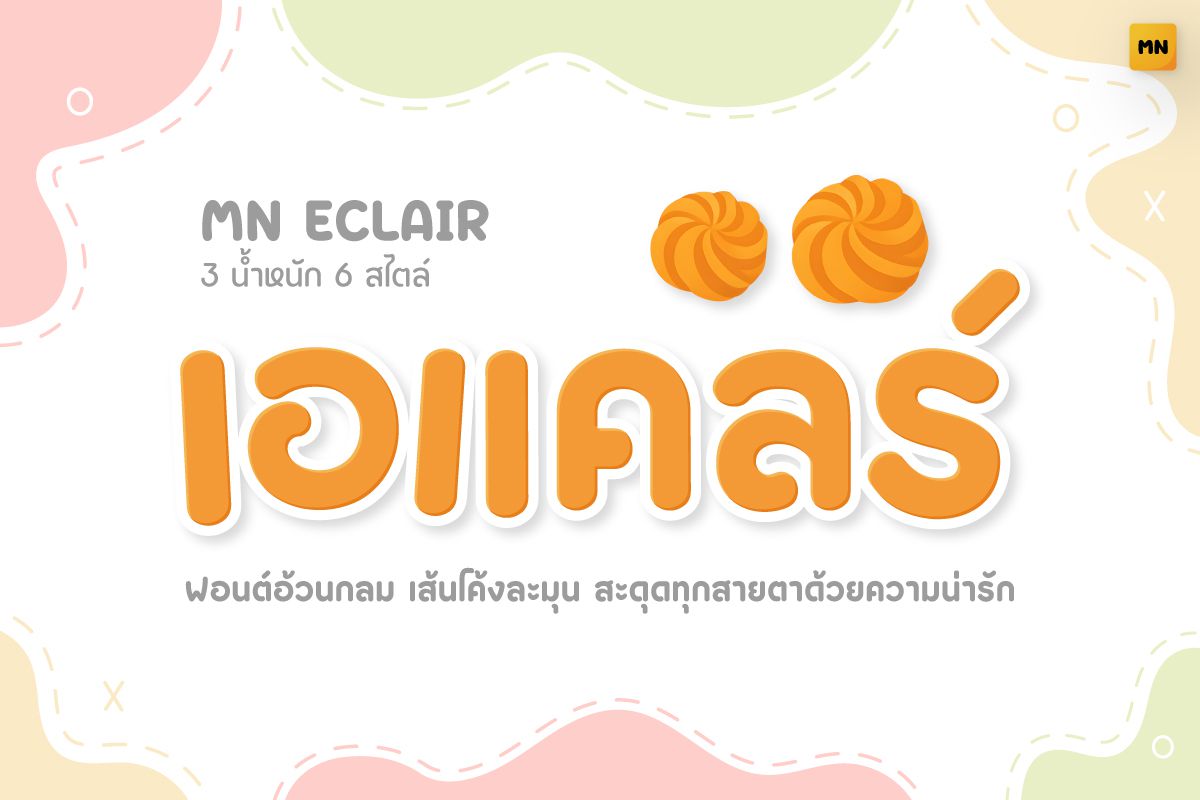
MN ECLAIR Italic
This rounded typeface features soft, thick strokes that create a friendly and approachable feel, making it ideal for designs that communicate warmth, playfulness, and friendliness.